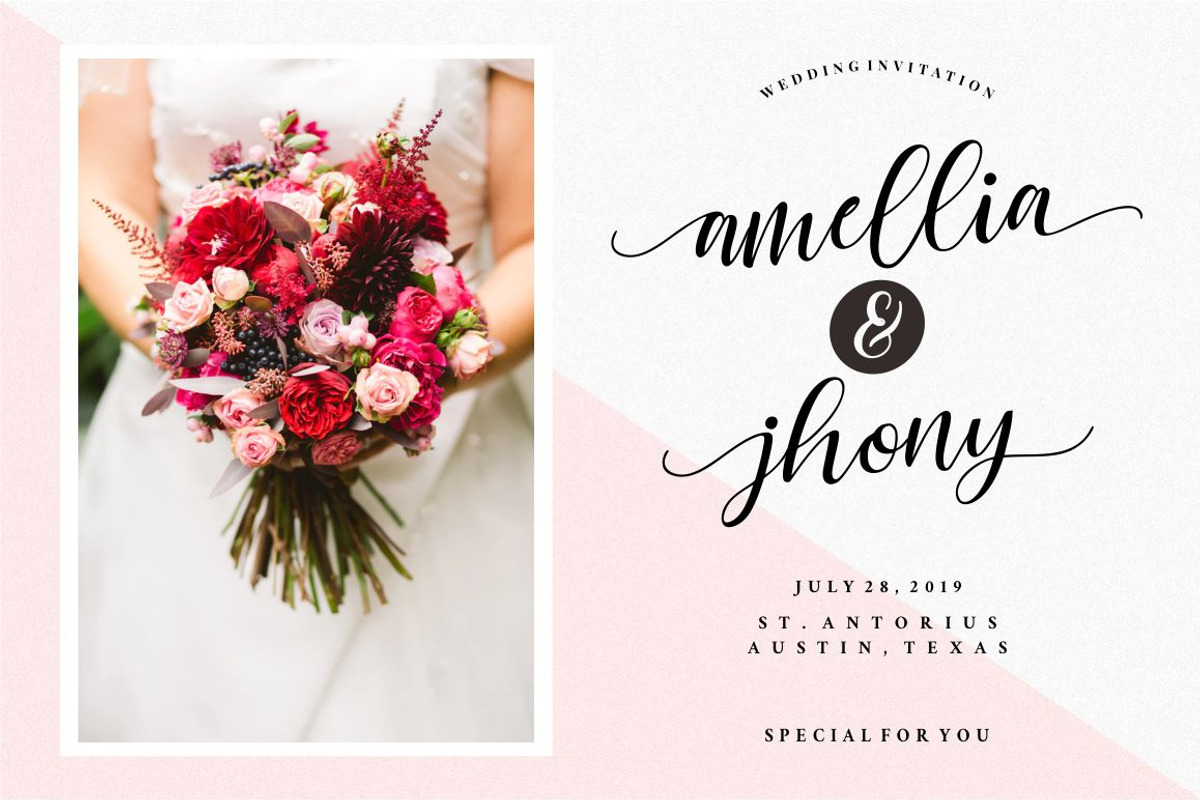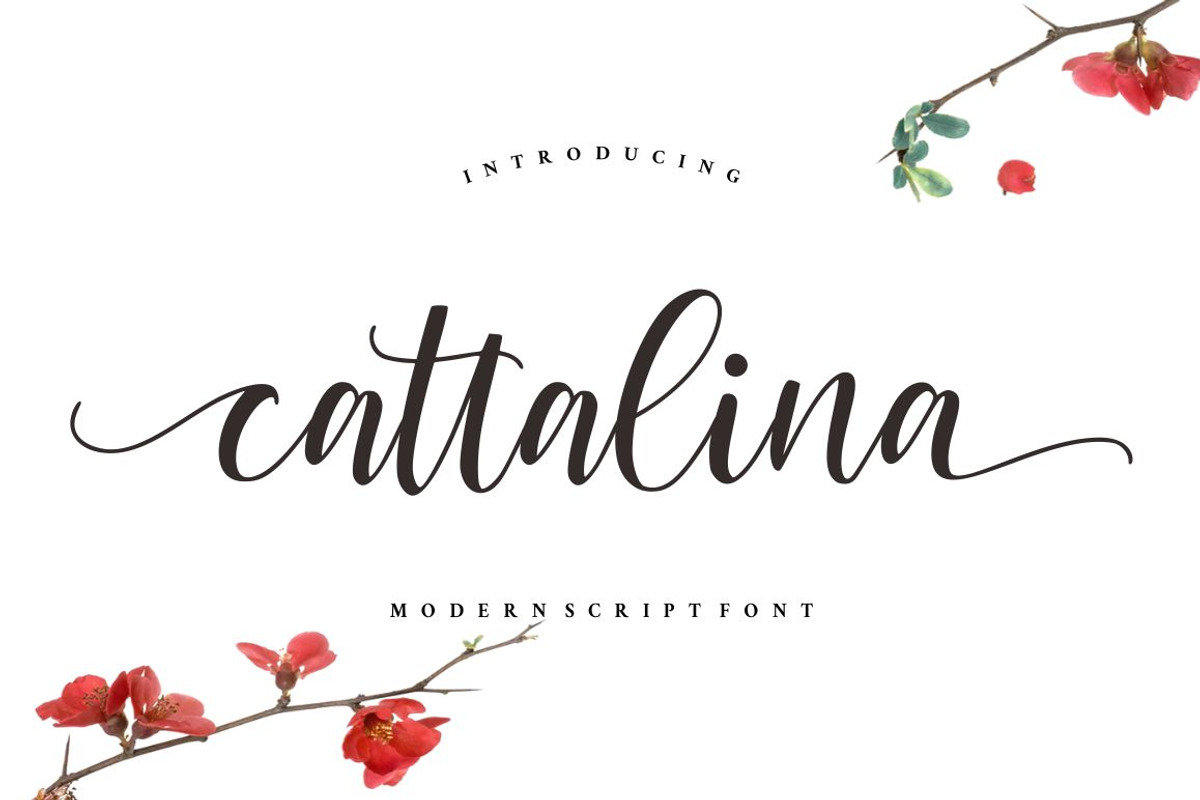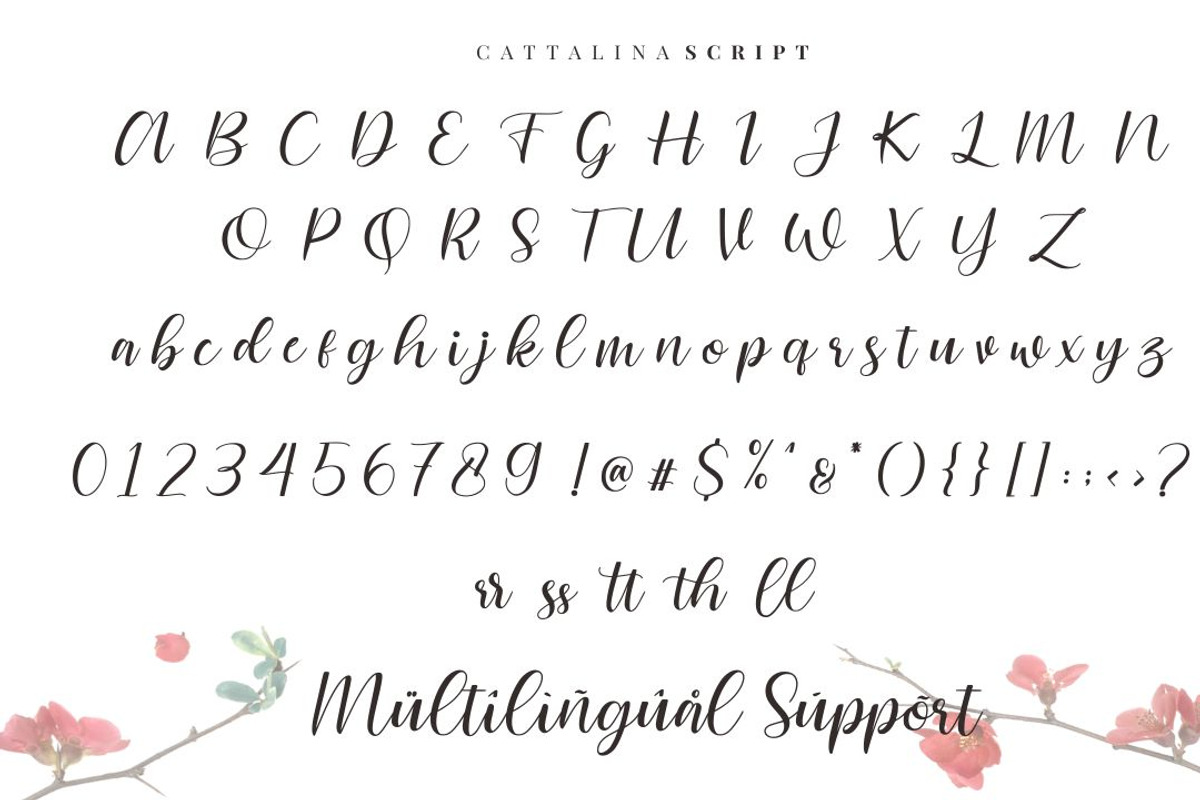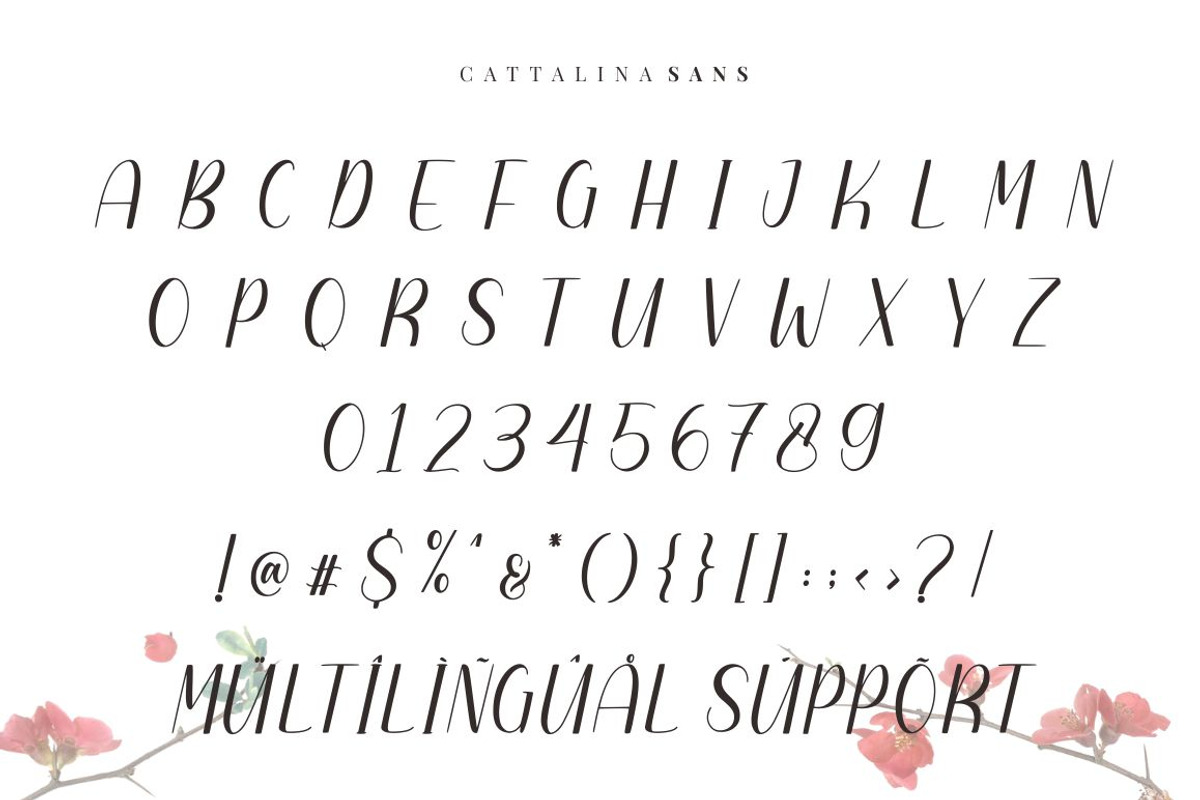
Cattalina - Beauty Font
Cattalina a luxury font is a natural & modern handwritten font. I'ts Perfect for logo, invitation, stationery, wedding designs, social media posts, advertisements, product packaging, product designs, label, photography, watermark, special events or anything. This font include : Cattalina OTF-TTF-WOFF , Standar Ligatures, Stylistic Sets, and also Multilingual support.
What's Advantages Cattalina?
Very great for branding, logotype, handletteing, invitations, or fashion branding.
Why Cattalina - Beauty Font is worth a look
Cattalina - Beauty Font by Good Java Studio fits naturally into Branding, posters, packaging, typography.